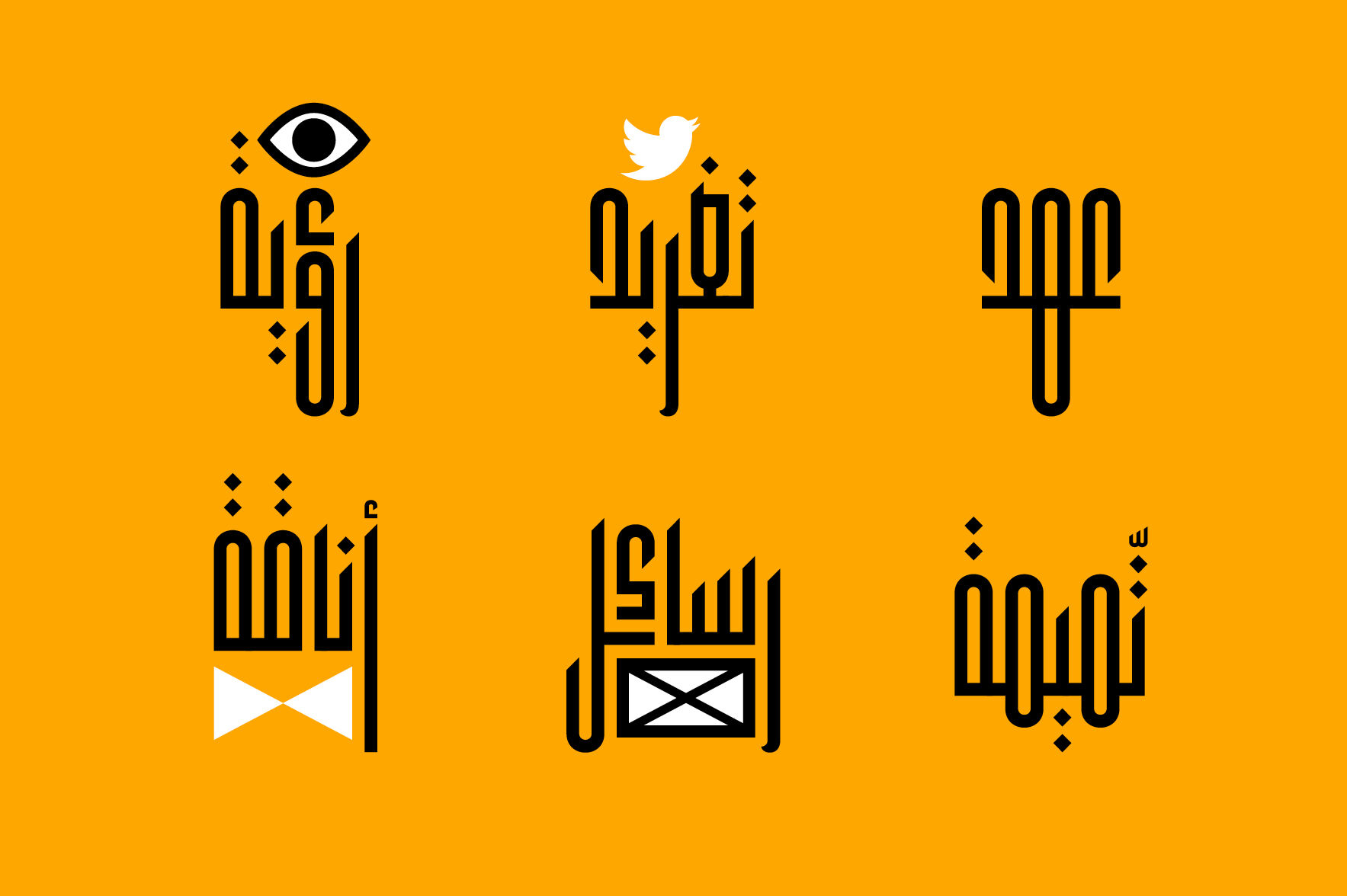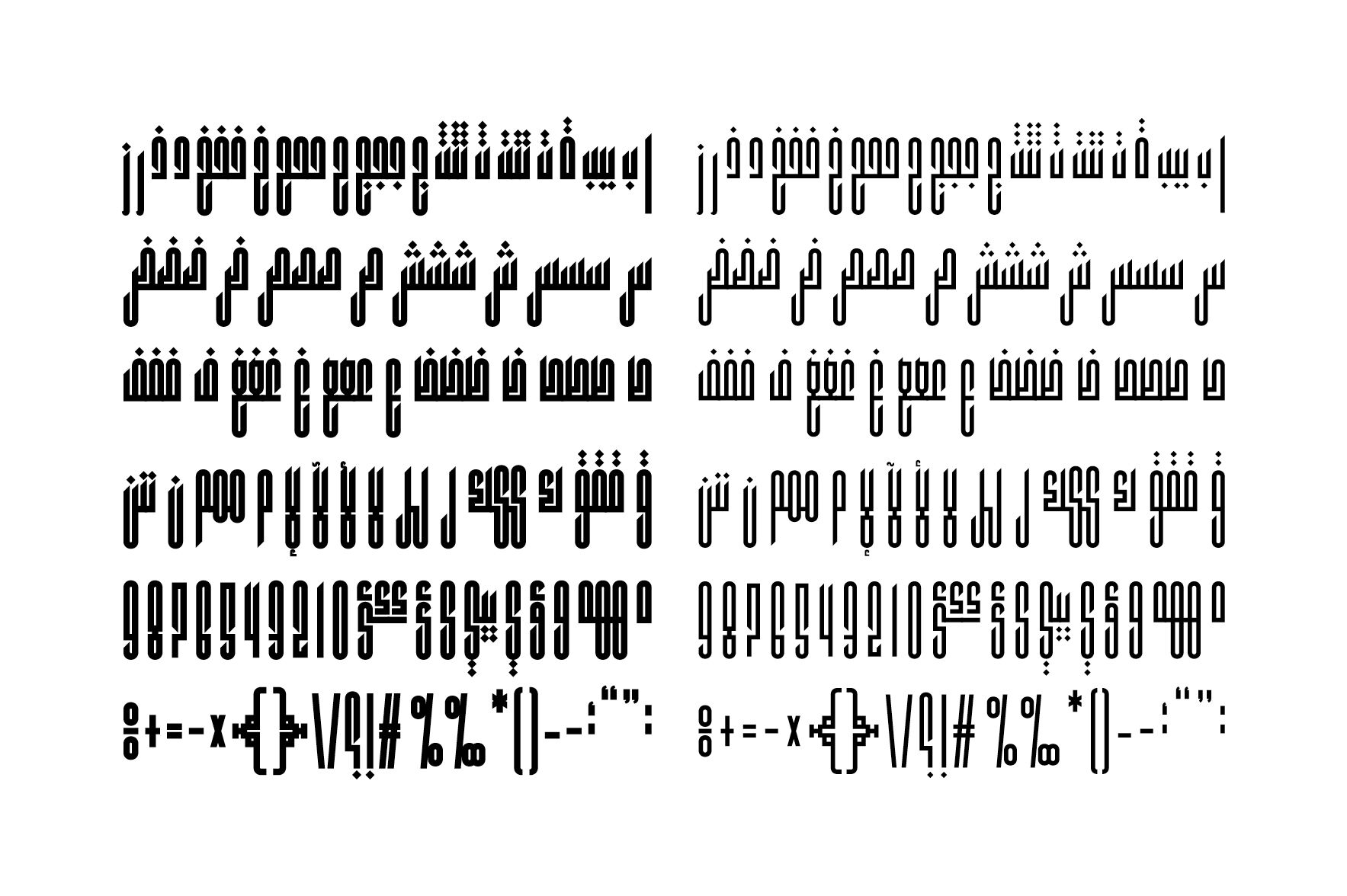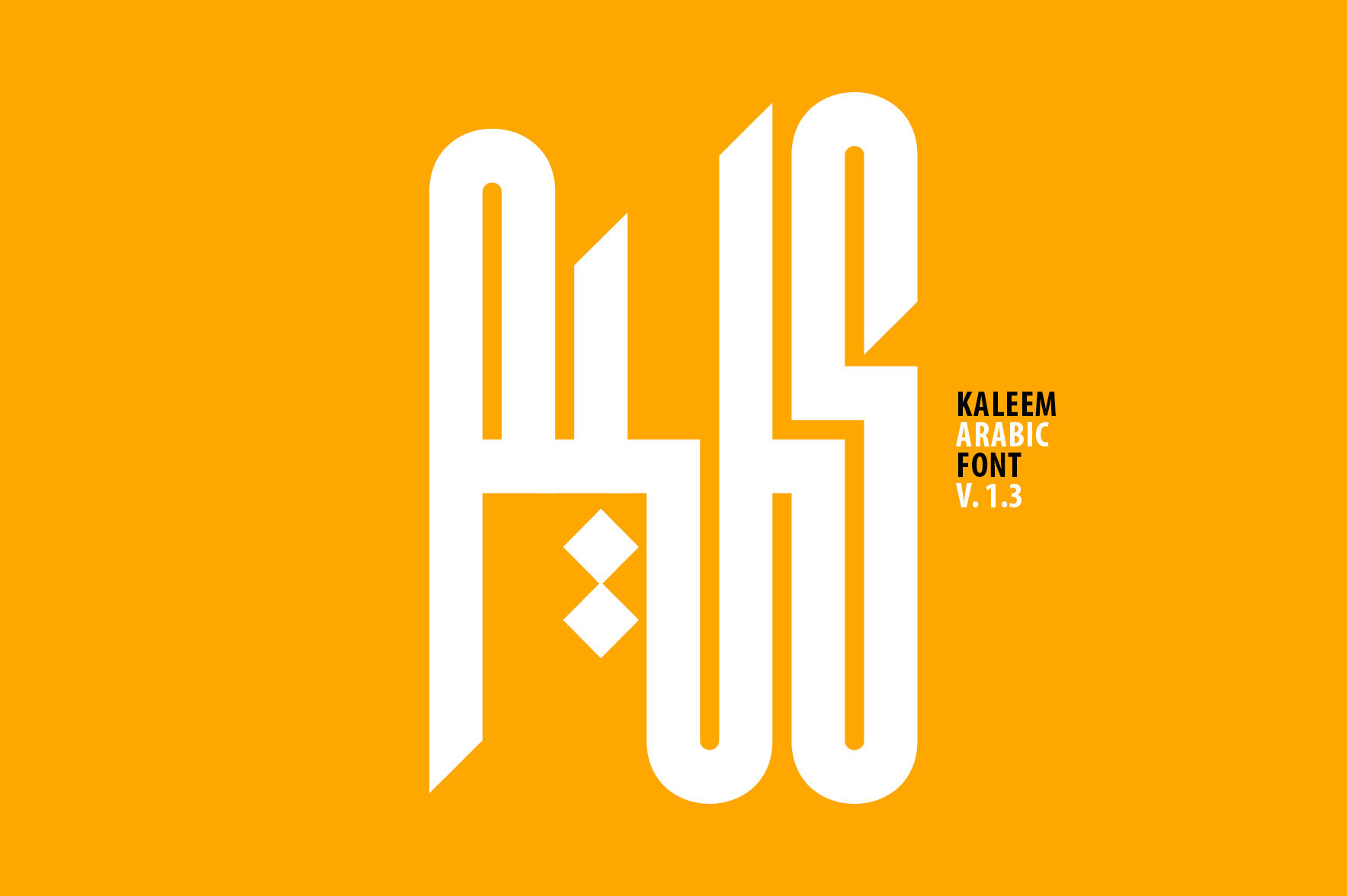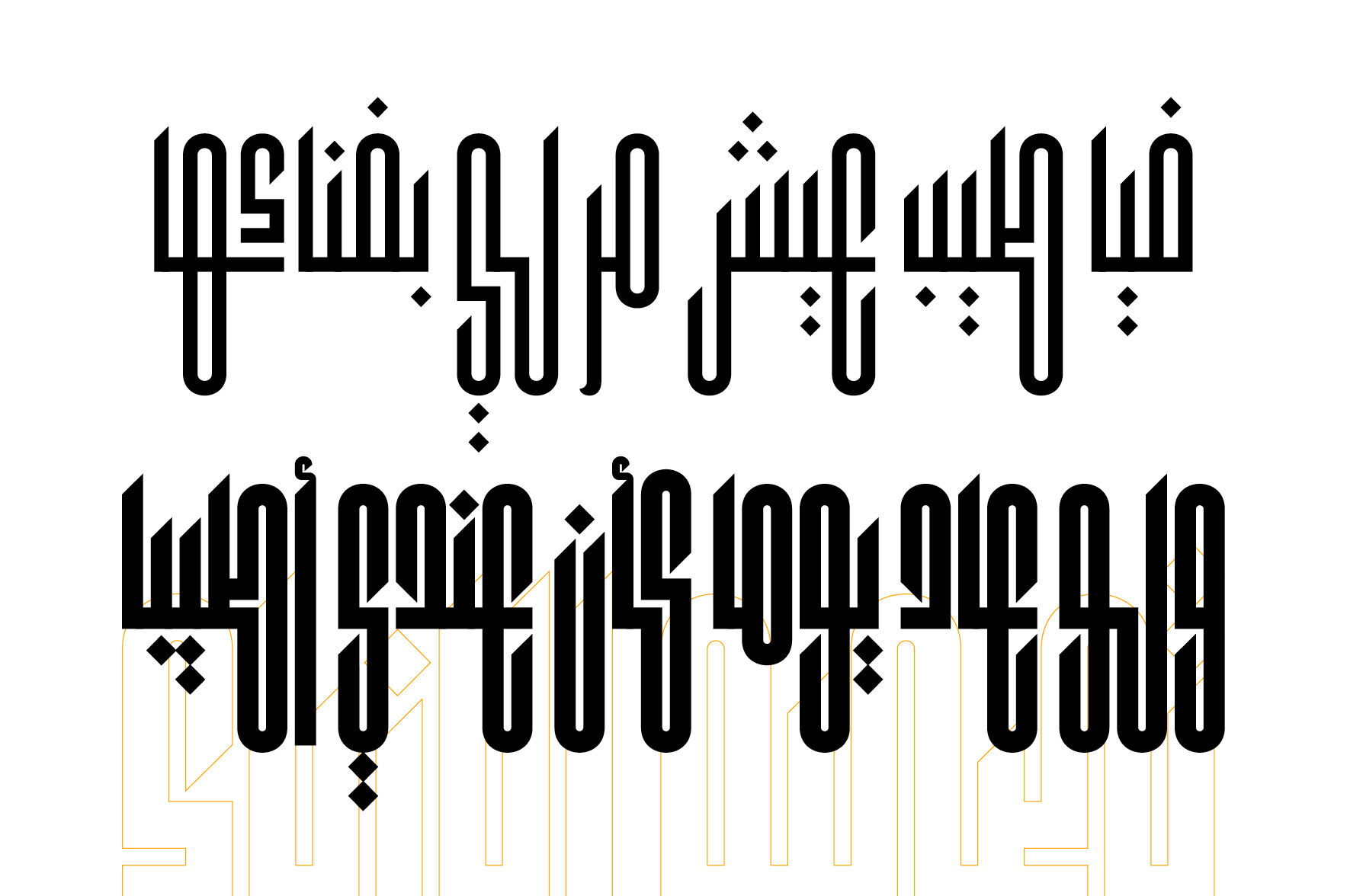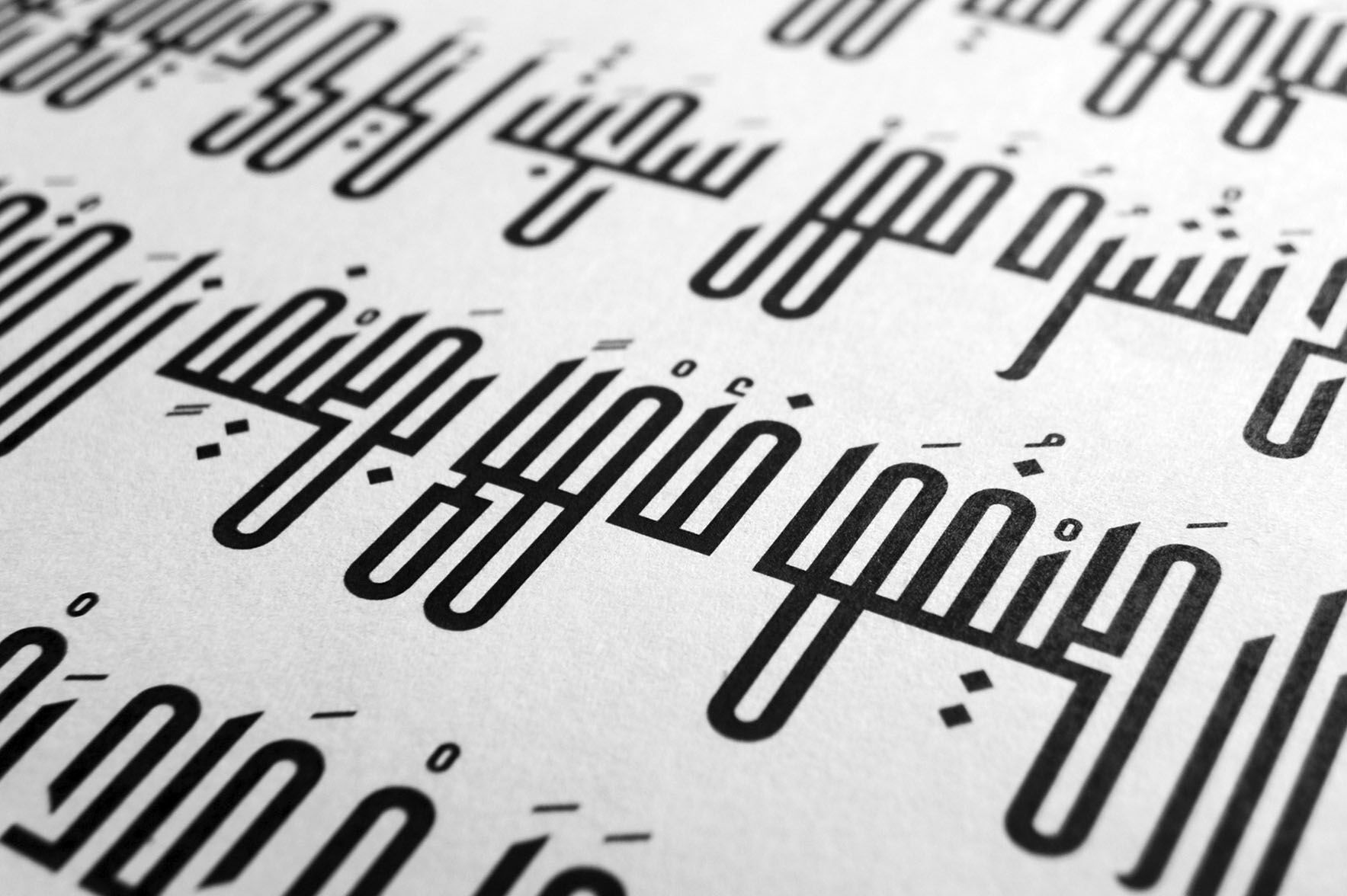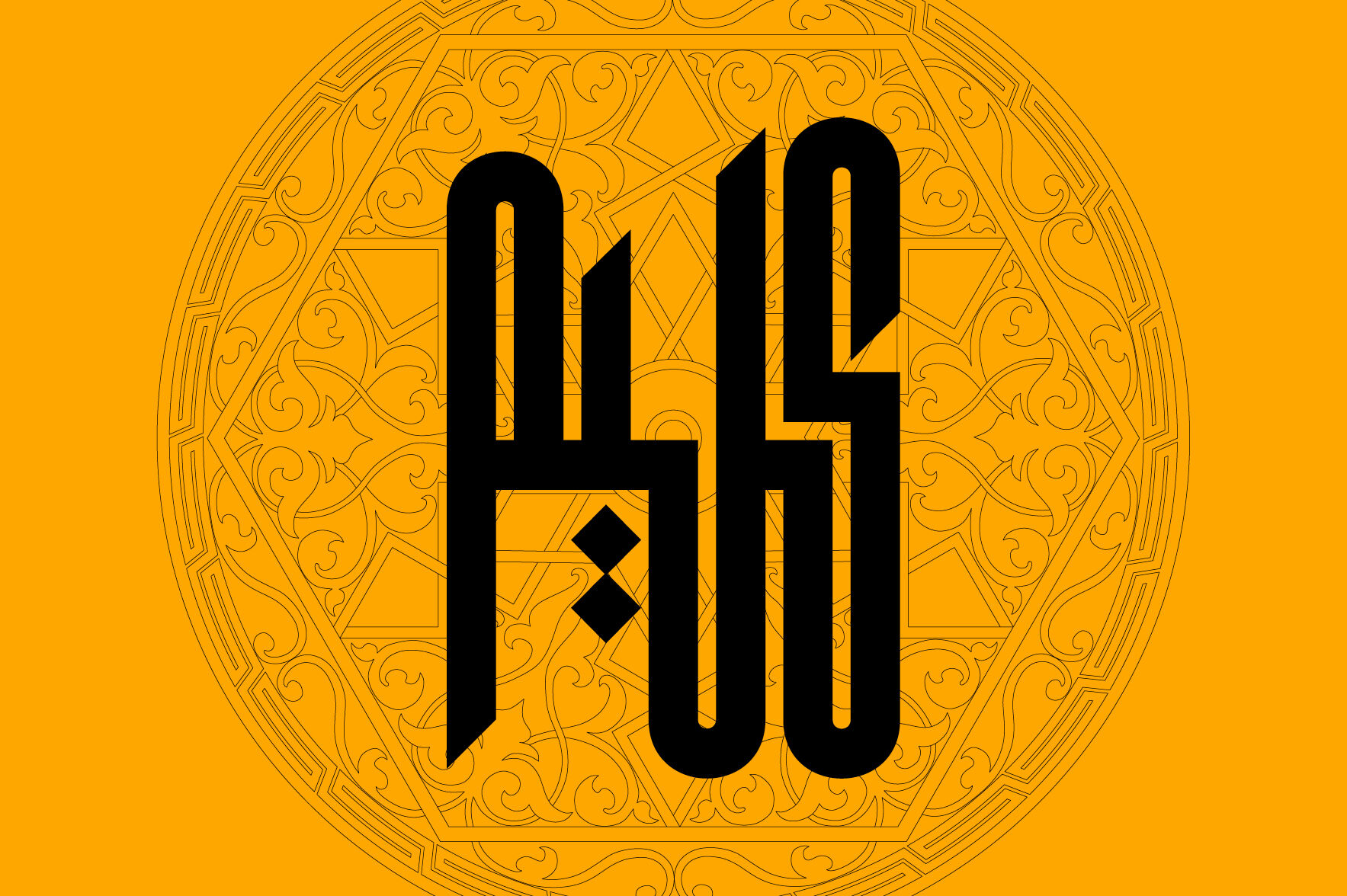
Kaleem - Arabic Font
Kaleem is an Arabic display font. The word ‘Kaleem’, in the Arabic Language refers to the unique talker. It also indicates the person who has a far-reaching conversation skills. The font features a unique writing style with a solid geometric structure which suits titling and creative heading. Kaleem consists of two weights; Regular and Bold.